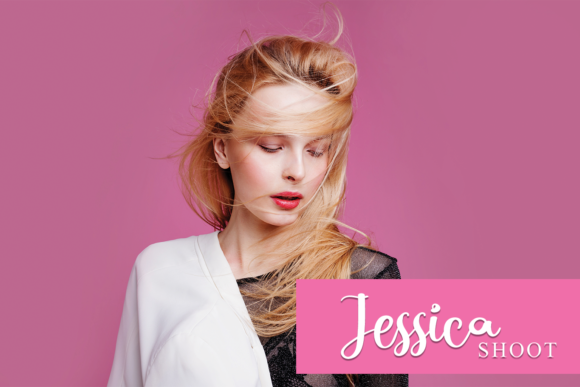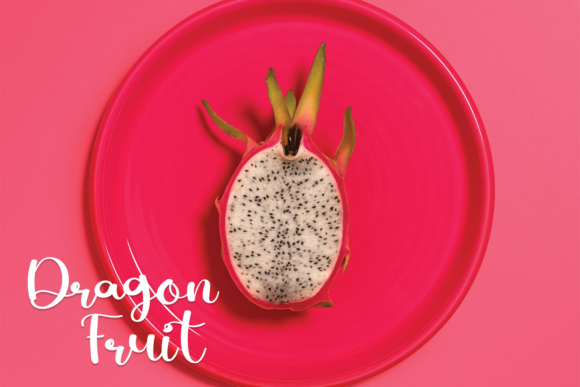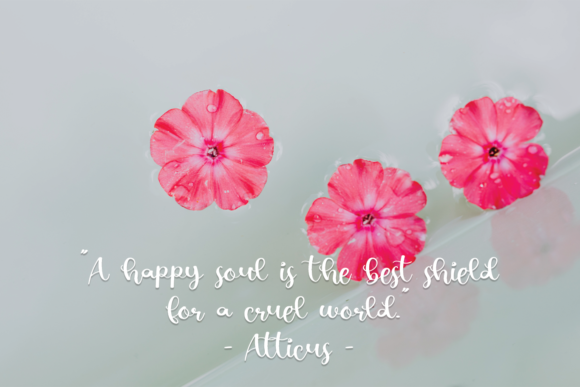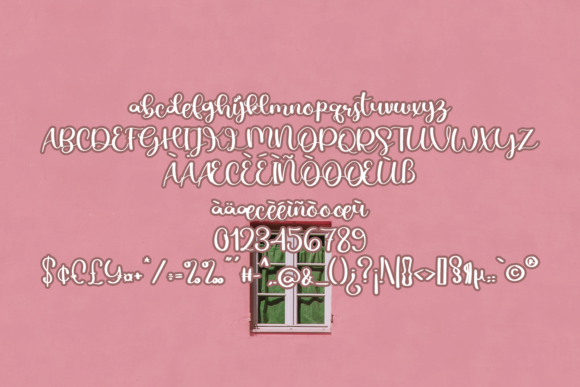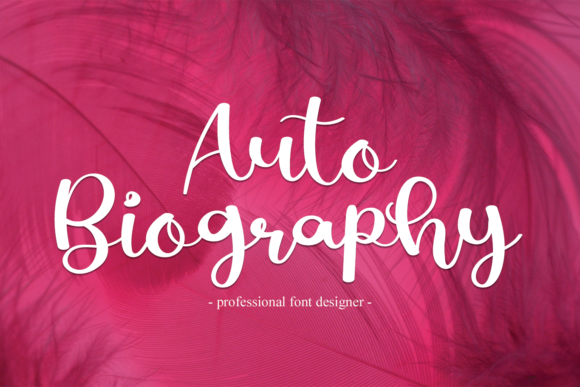
Introducing Autobiography Font: Elevate Your Designs with Elegance and Class
Are you a designer or crafter looking for a font that exudes sophistication and refinement? Look no further than Autobiography Font, a lovely and delicate script font that adds a touch of elegance to any design. In this article, we’ll explore the features and benefits of Autobiography Font, and how it can elevate your designs to the next level.
What is Autobiography Font?
Autobiography Font is a beautifully crafted script font that is perfect for designers and crafters who want to add a touch of class and sophistication to their work. With its delicate and elegant strokes, Autobiography Font is ideal for a wide range of design projects, from wedding invitations and branding materials to packaging and digital media.
Key Features of Autobiography Font
• Elegant and Refined: Autobiography Font features delicate and elegant strokes that exude sophistication and refinement.
• Beautifully Crafted: This font was particularly crafted for designers and crafters who need a beautiful and refreshing look to their designs.
• Versatile: Autobiography Font is perfect for a wide range of design projects, from wedding invitations and branding materials to packaging and digital media.
• Easy to Read: Despite its elegant and delicate nature, Autobiography Font is easy to read, making it perfect for body text and headlines.
Benefits of Using Autobiography Font
So, why should you choose Autobiography Font for your design projects? Here are just a few benefits of using this beautiful script font:
• Adds Elegance and Sophistication: Autobiography Font adds a touch of elegance and sophistication to any design, making it perfect for high-end branding and marketing materials.
• Stand Out from the Crowd: With its unique and delicate strokes, Autobiography Font helps your designs stand out from the crowd and grab attention.
• Perfect for Wedding and Event Designs: Autobiography Font is perfect for wedding invitations, save-the-dates, and other event designs where elegance and sophistication are key.
• Easy to Pair: Autobiography Font pairs well with a wide range of fonts, making it easy to mix and match with other fonts to create a unique look.
How to Use Autobiography Font
Using Autobiography Font is easy! Here are a few tips for incorporating this beautiful script font into your design projects:
• Use it as a Headline Font: Autobiography Font is perfect for headlines and titles, where its elegant and delicate strokes can really shine.
• Pair it with a Sans-Serif Font: Pair Autobiography Font with a sans-serif font, such as Arial or Helvetica, to create a beautiful and contrasting look.
• Experiment with Font Sizes: Don’t be afraid to experiment with different font sizes to create visual interest and hierarchy in your designs.
In conclusion, Autobiography Font is a beautiful and elegant script font that is perfect for designers and crafters who want to add a touch of sophistication and refinement to their designs. With its delicate and elegant strokes, Autobiography Font is ideal for a wide range of design projects, from wedding invitations and branding materials to packaging and digital media. Whether you’re looking to add elegance and sophistication to your designs or simply want to try something new, Autobiography Font is a great choice.